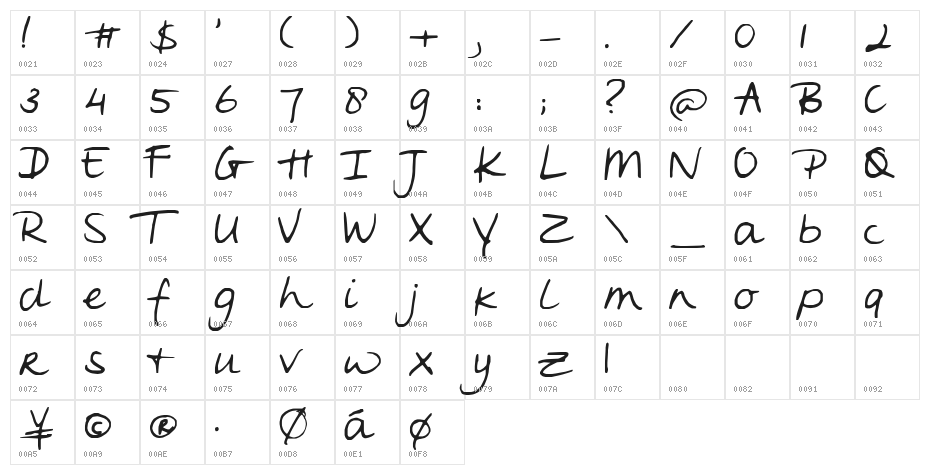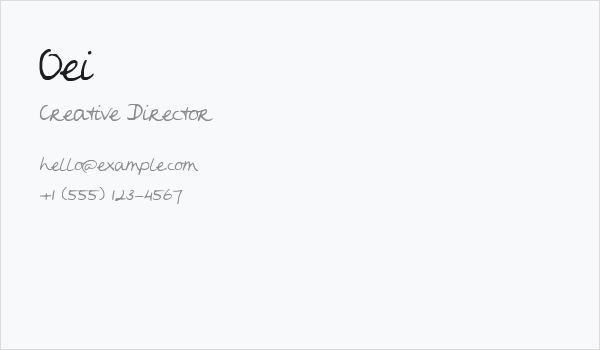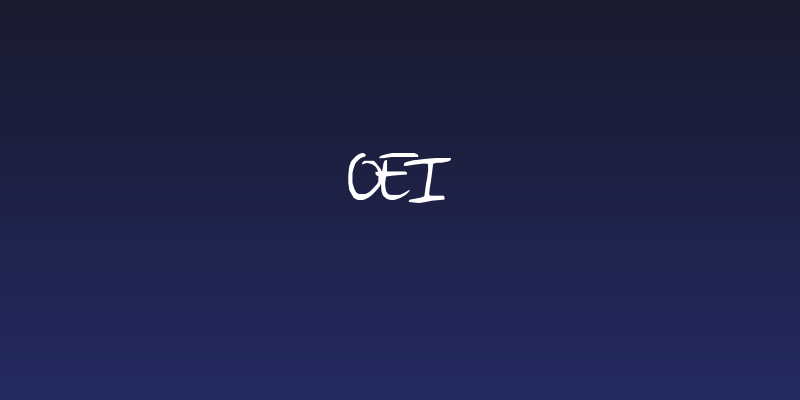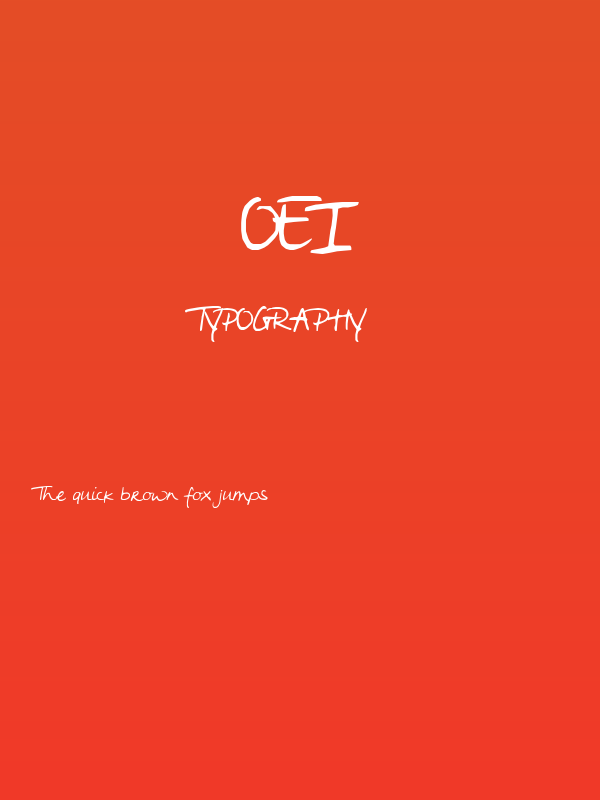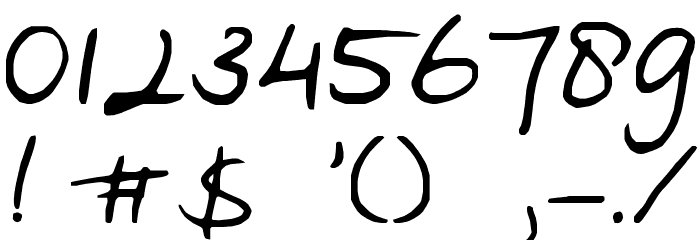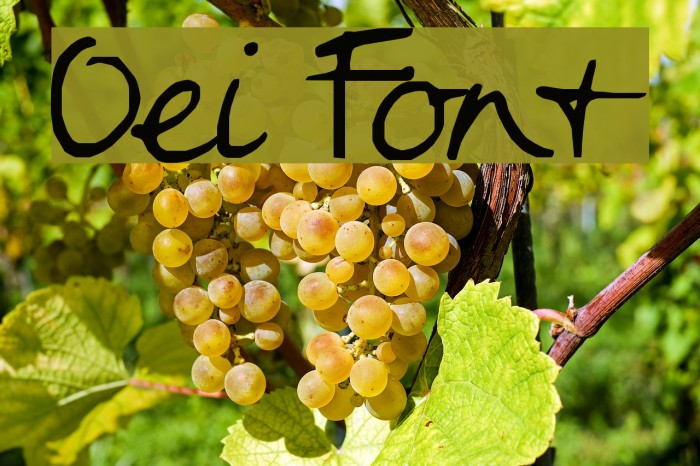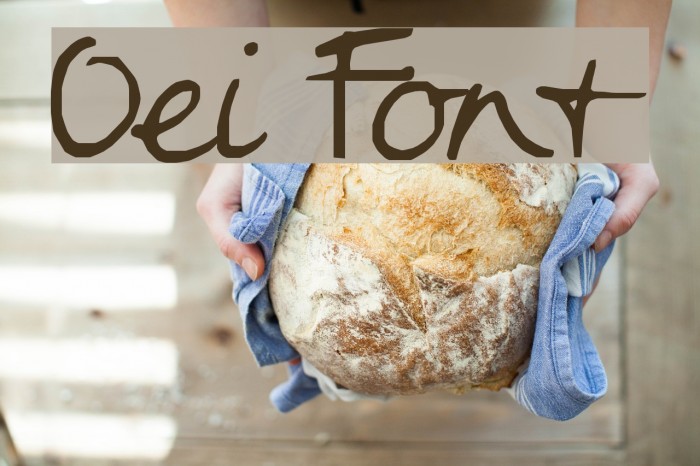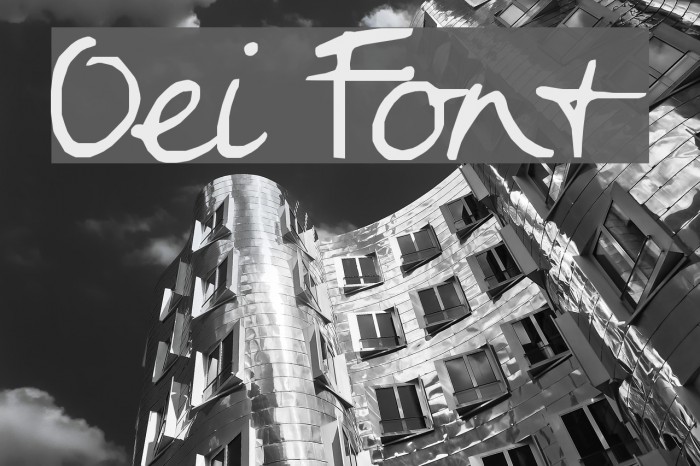
Oei Font
Oei Description
This font features a handwritten style with a casual and informal appearance. The letters are slightly slanted, giving it a dynamic and lively feel. The strokes are uneven, mimicking the natural flow of handwriting, which adds a personal touch to the text. The uppercase and lowercase letters maintain a consistent style, with rounded edges and varying stroke widths. The numbers and special characters are also crafted in the same handwritten style, ensuring uniformity across all elements. This font is ideal for projects that require a personal, approachable, and friendly tone.
| Proposed Projects | Greeting cards, personal blogs, informal invitations, and creative projects. |